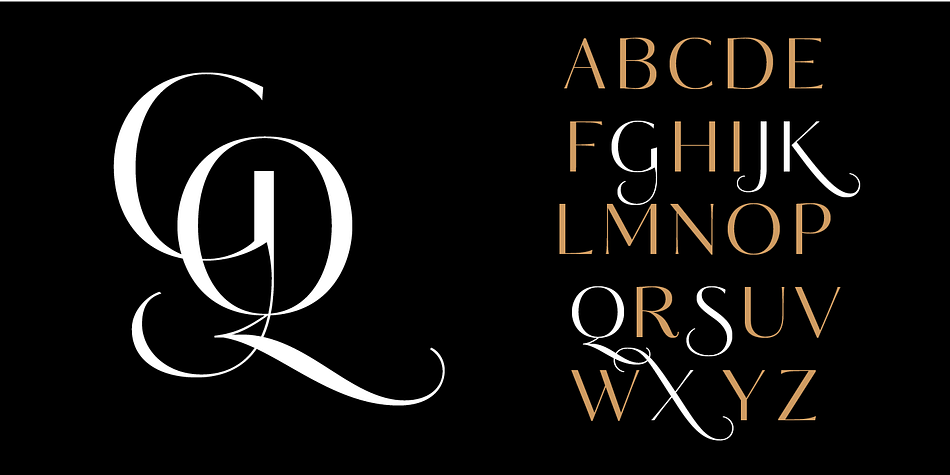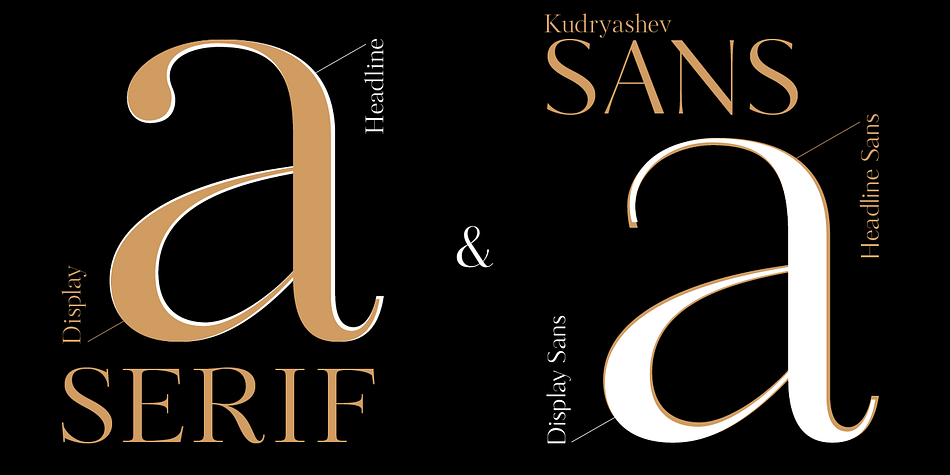
Kudryashev Display
Designed by Isabella Chaeva, Alexandra Korolkova and Olga Umpeleva, Kudryashev Display is a sans serif and serif font family. This typeface has four styles and was published by ParaType.
Kudryashev Display is a set of light and high-contrast faces based on Kudryashev text typeface. In addition to Kudryashev Display and Kudryashev Headline faces, the type family includes also two sans-serif faces of the same weight and contrast, with some alternates.
The graceful nature of the typeface, along with carefully designed details, allows to use it in large point sizes, for example in magazine layouts, packaging design and in many other ways.
The serif styles were designed by Olga Umpeleva in 2011, the sans styles were created by Isabella Chaeva in 2015 with the participation of Alexandra Korolkova.
The typeface was released by ParaType in 2015.
Foundry ParaType
Designers Isabella Chaeva, Alexandra Korolkova, Olga Umpeleva